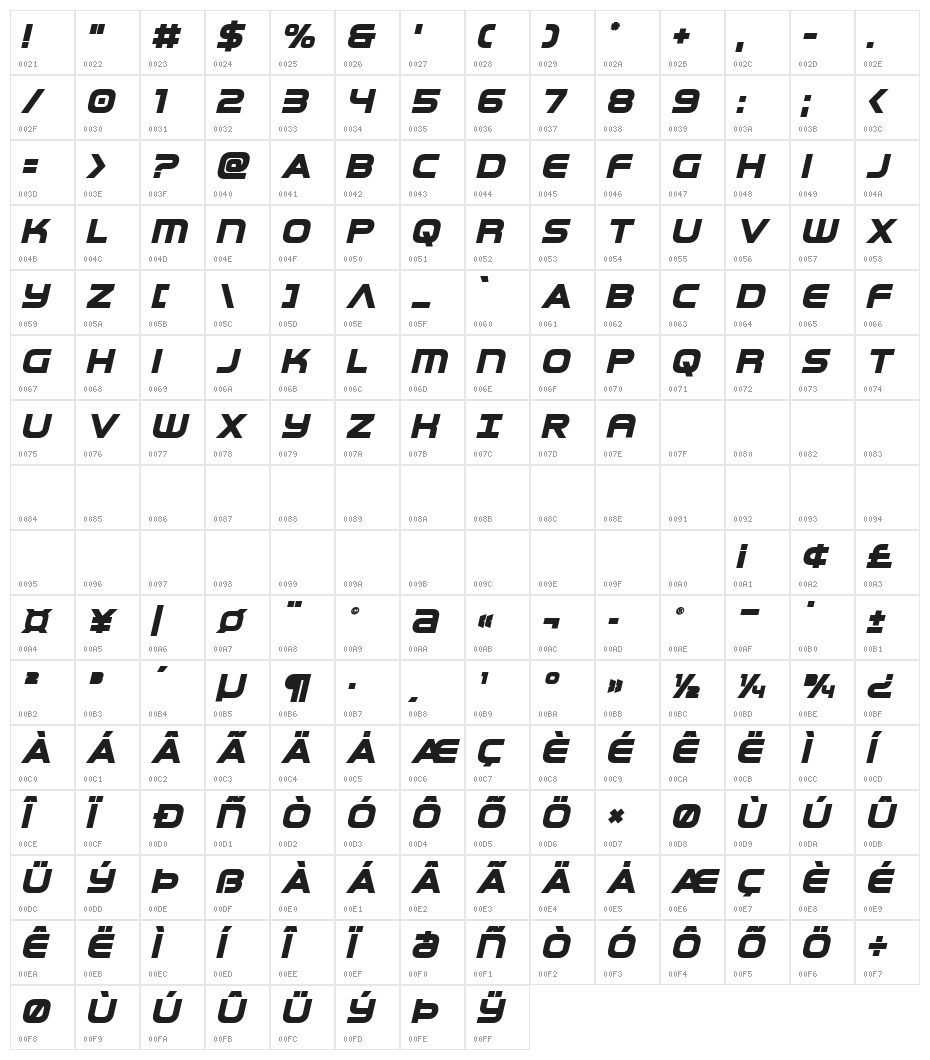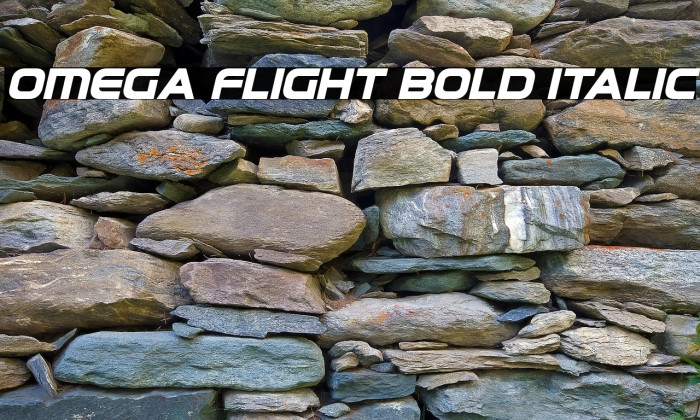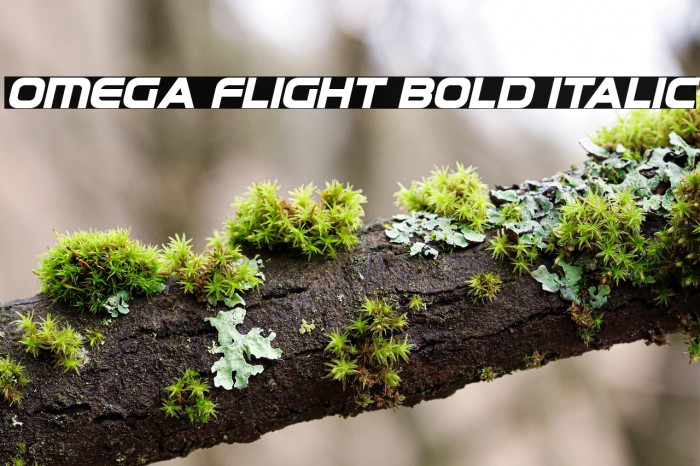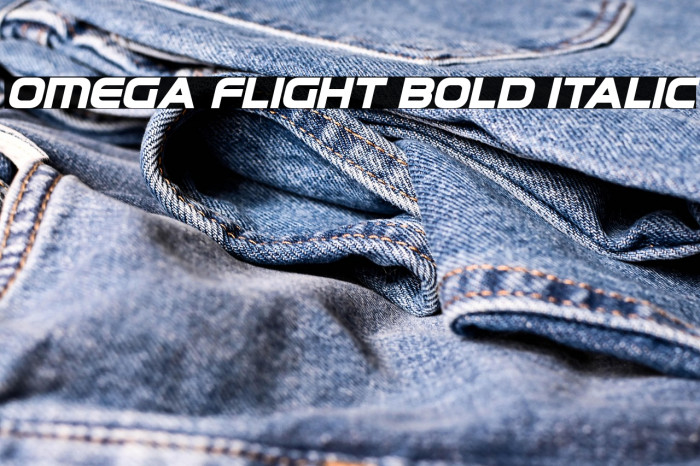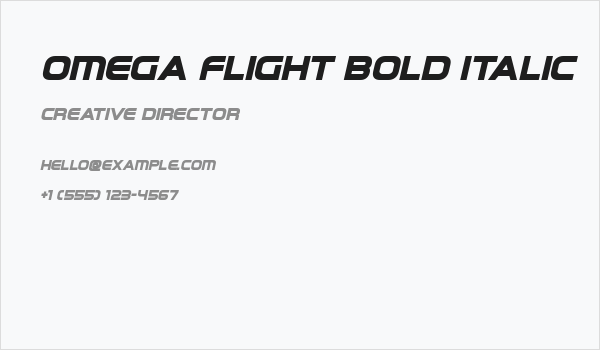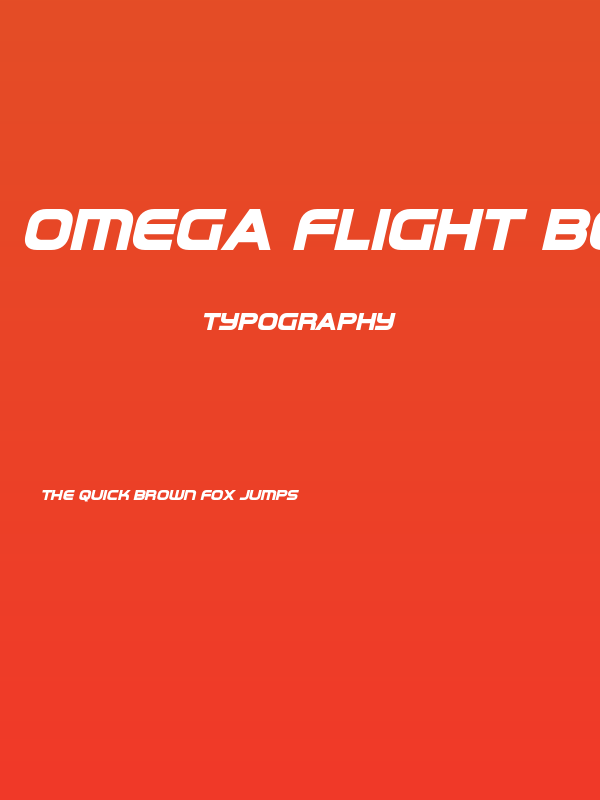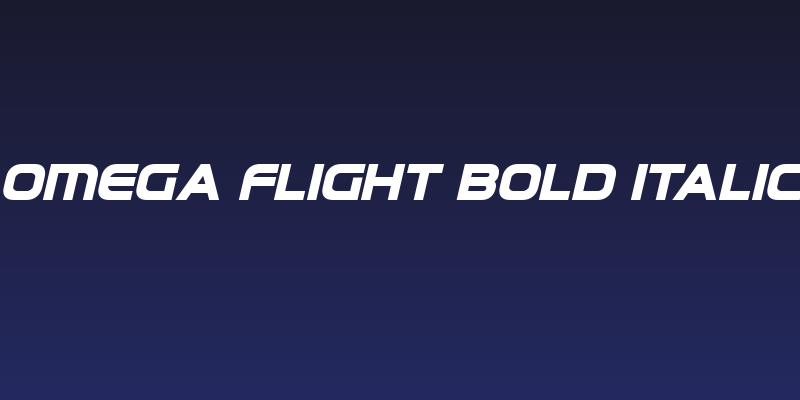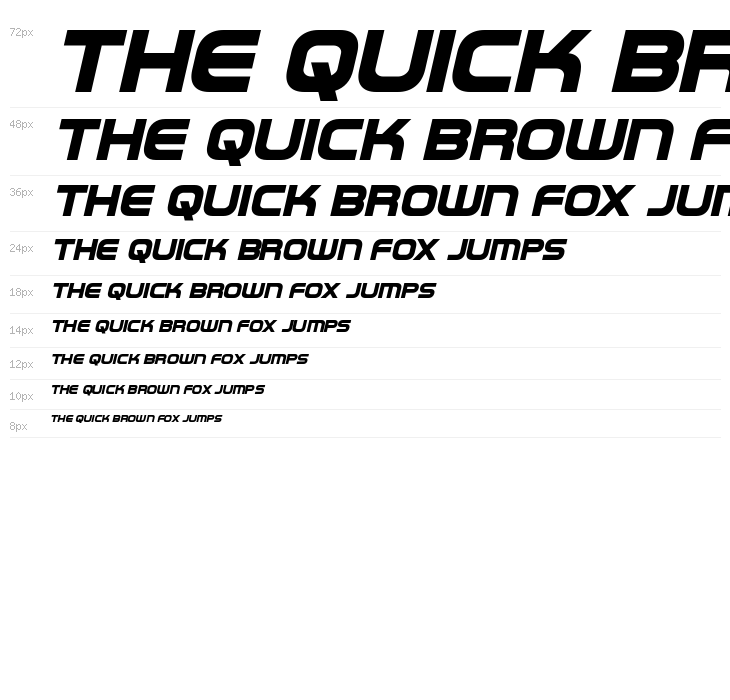
Omega Flight Bold Italic Font
Omega Flight Bold Italic Description
This font features a bold and italicized style, characterized by its dynamic and forward-leaning appearance. The letters are designed with a modern and sleek aesthetic, making them ideal for creating a sense of motion and energy. The uppercase and lowercase letters maintain a consistent slant, enhancing the italic effect. The numbers and special characters are crafted to match the bold and italicized theme, providing a cohesive look across all characters. The font's design is suitable for projects that require a contemporary and impactful visual presence.
| Use Case | Headlines, Logos, Advertising |
| Proposed Projects | Ideal for sports branding, dynamic logos, modern advertising, and futuristic designs. |